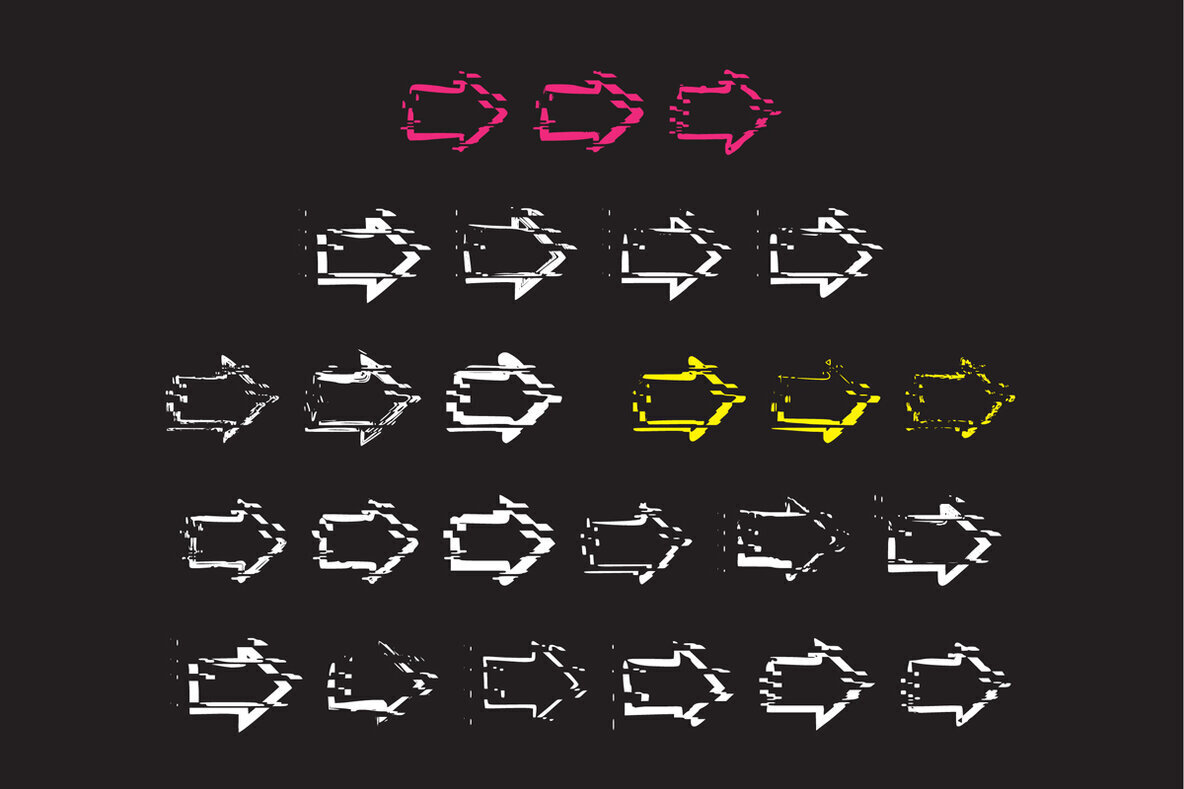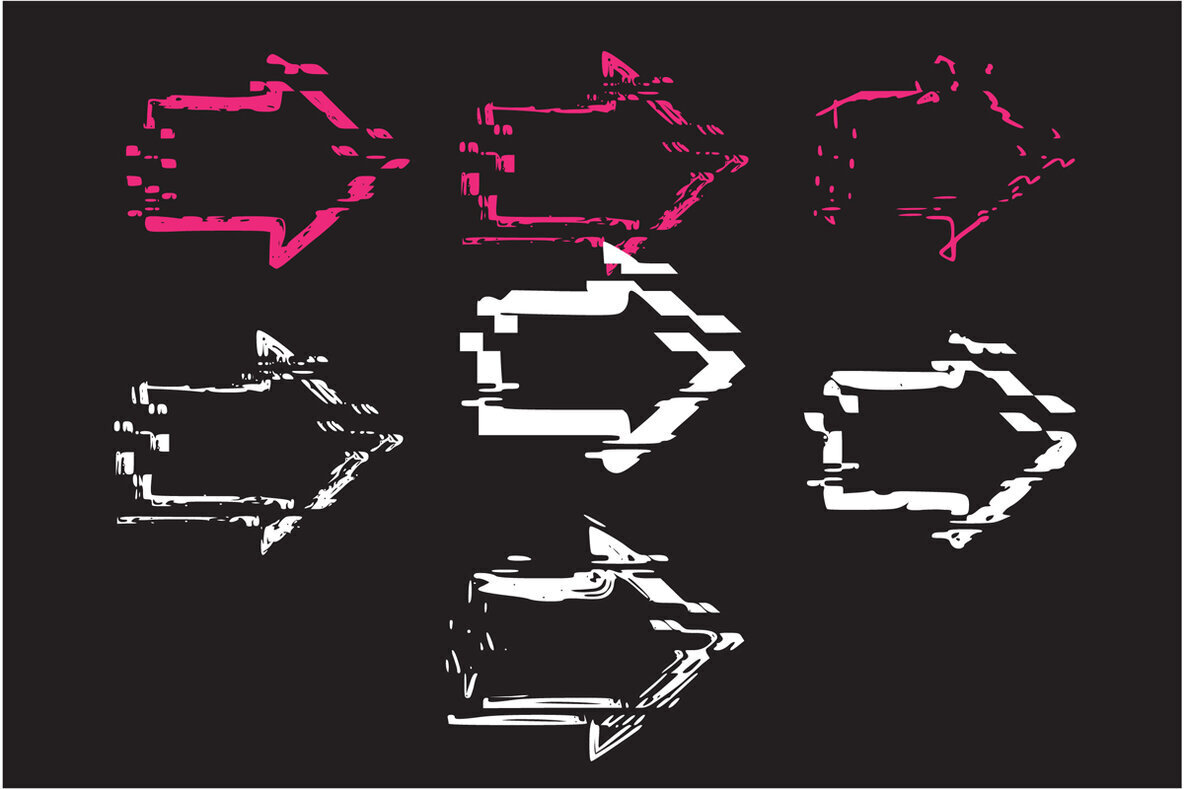
Glitched Big Arrow Font
Glitched Big Arrow
Glitch Big Arrows is a cool, uniquely shaped, pixelated dingbats font. Add a distorted and trendy touch to your designs with this unusual font!